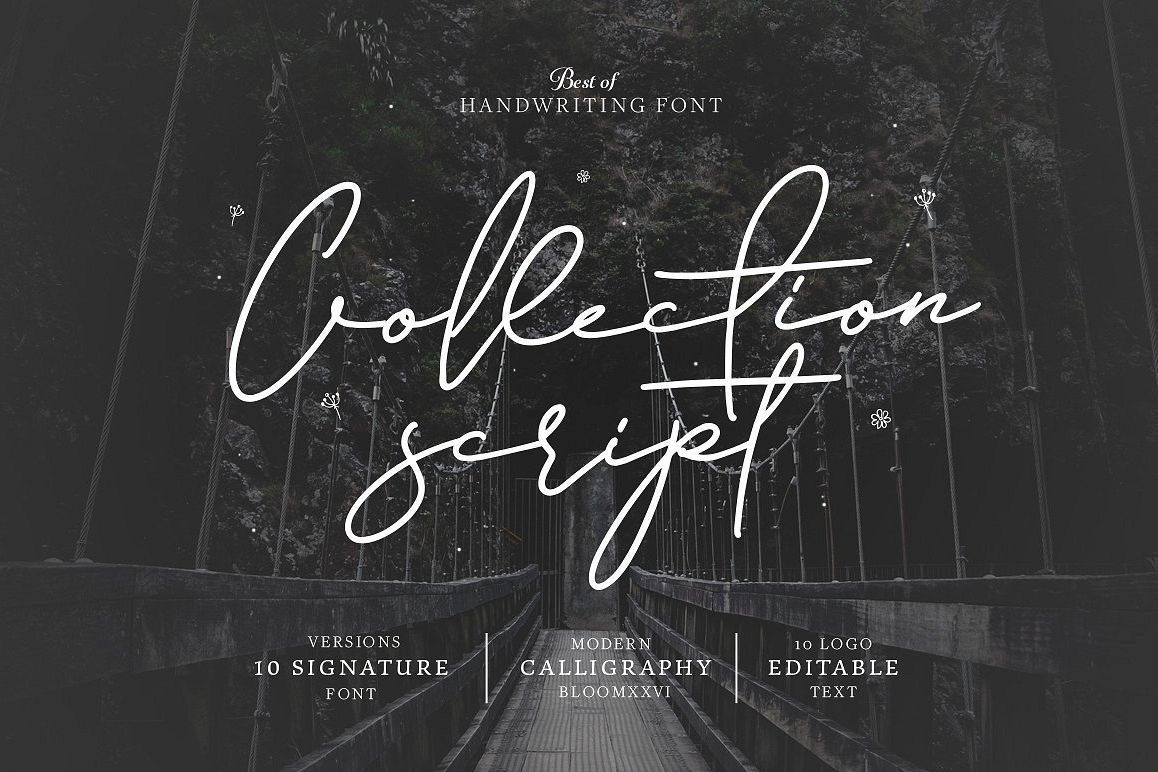
10 Font Script Collection + doodlee art
ntroducing Collection Script that includes 10 different style of fonts + bonus Doodlee art . These handwritten fonts blend together perfectly and perfectly fit for any of your project.. some item also comes with Ligatures and Stylistic Alternates that will make the signature font more real. Can used for various purposes. such as logo, product packaging, wedding invitations, branding, headlines, signage, labels, signature, book covers, posters, quotes and more.What will you get
• Macquina
• Jamsuit
• Olwas & Extra
• Phelovetica
• Beverley Script
• Flow Regular
• Scarletto 1
• Scarletto 2
• Harbour Script
• Velowley